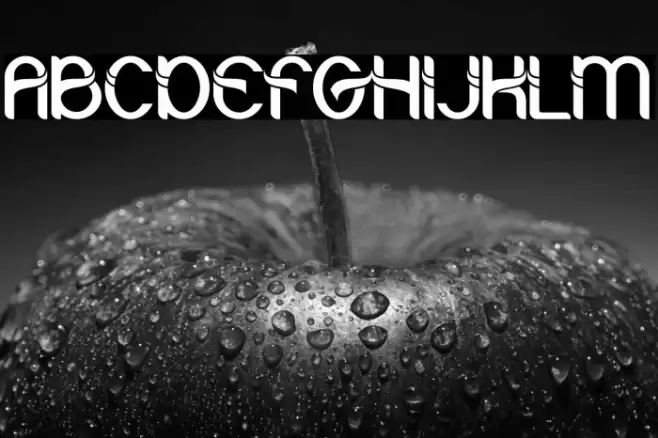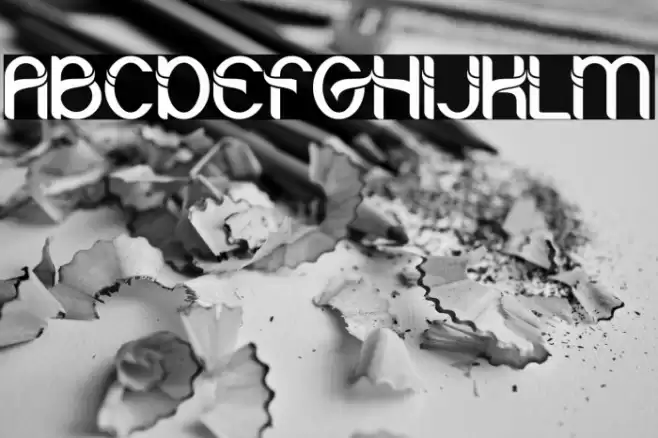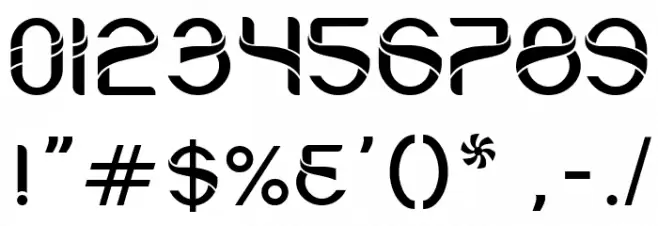
Morgana Font
Morgana Description
This font features a unique and modern design with a futuristic flair. The characters are crafted with a combination of bold strokes and geometric shapes, creating a visually striking appearance. The uppercase and lowercase letters maintain a consistent style, with rounded edges and a distinct cut-out effect that adds depth and dimension. The numerals and special characters follow the same design principles, ensuring a cohesive look across all elements. This font's innovative style makes it suitable for projects that require a contemporary and eye-catching aesthetic.
A modern, geometric font with bold strokes and a futuristic design from Uncategorized fonts.